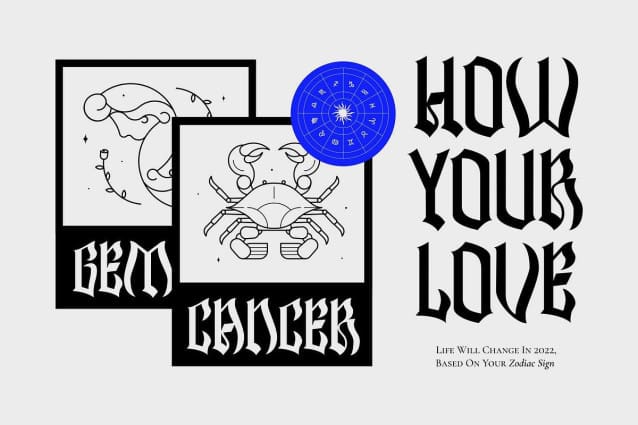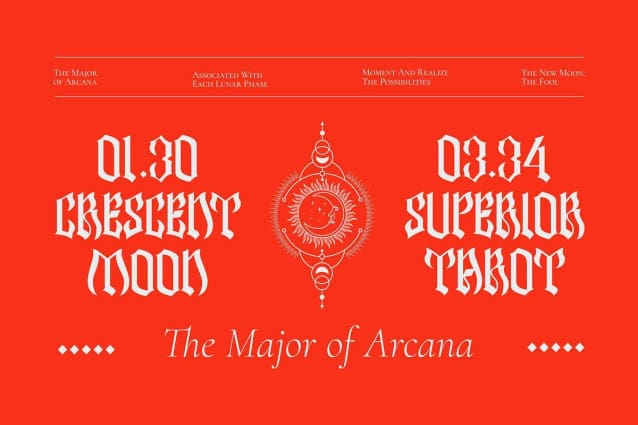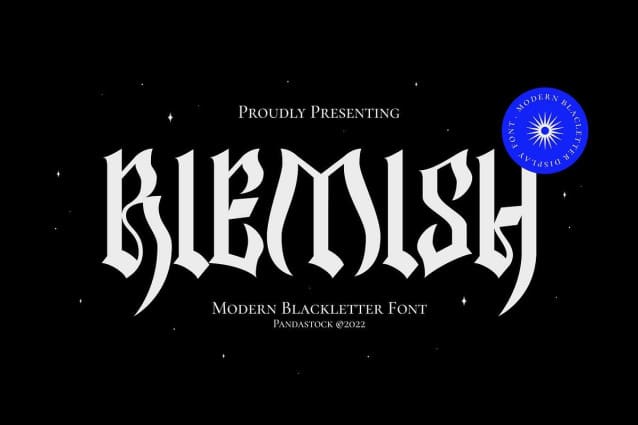
Riemish Blackletter Font
Riemish Blackletter Font is blackletter font with visual elegance, smooth curves, and beautiful ligatures clear, making your work look true and attractive.
A very versatile font that works in both large and small sizes. This font is suitable for a wide variety of projects such as invitations, logos, branding, magazine, photography, card, product packaging, mugs, quotes, poster, labels, signatures, and more.
Font which is perfect for all business sectors including personal projects, studio, corporate, creative agency, industrial, company, etc.